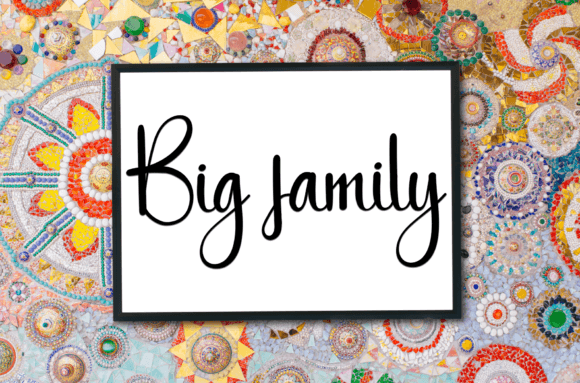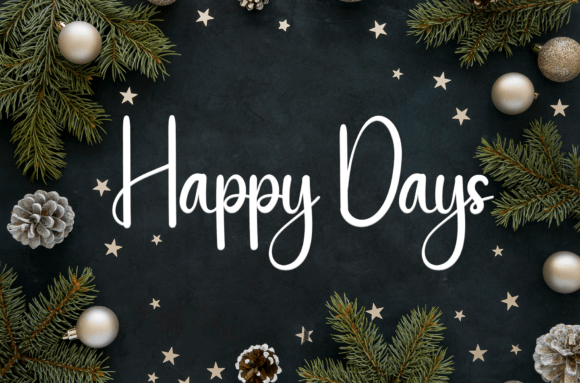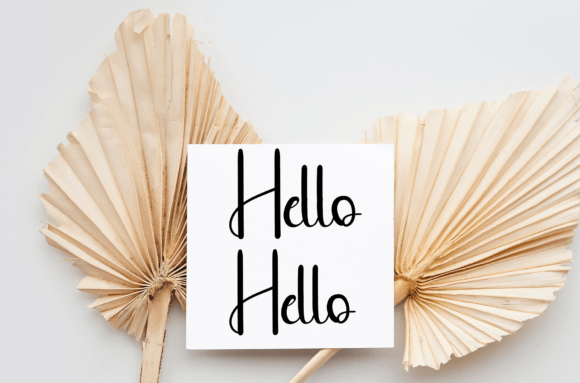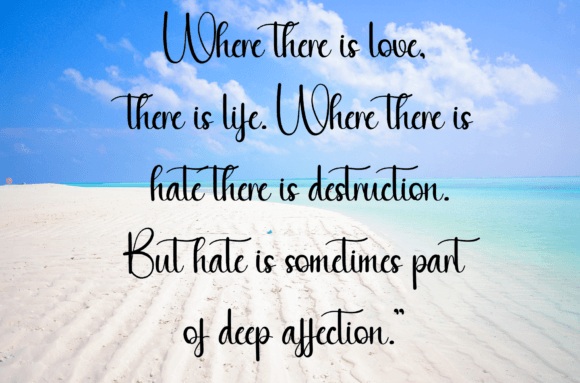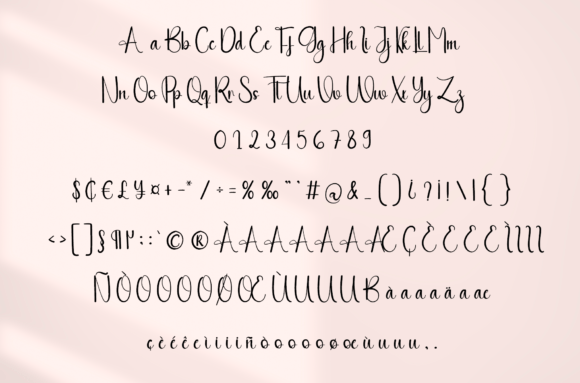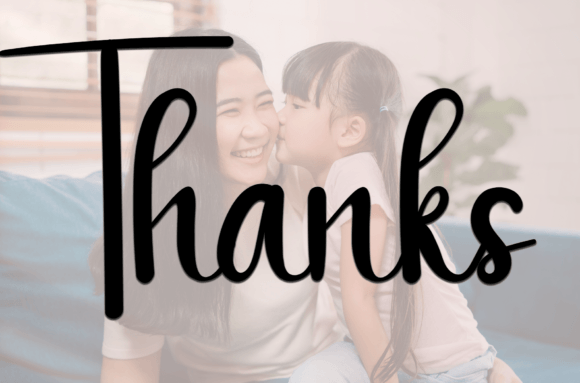
Introduction to Laugh Smile Font
Laugh Smile feels equally charming and elegant.
It looks stunning on wedding invitations, thank you cards, quotes, greeting cards, logos, business cards, and every other design which needs a handwritten touch .
Key Features of Laugh Smile Font
Why Choose Laugh Smile Font?